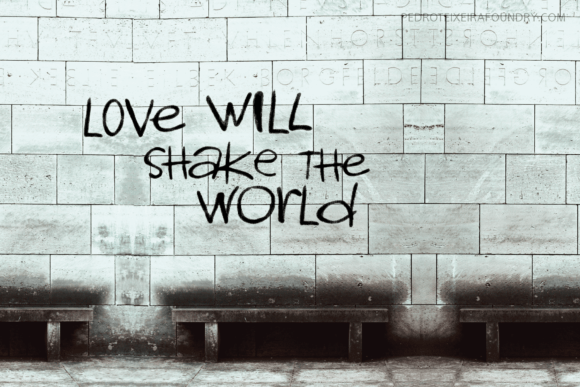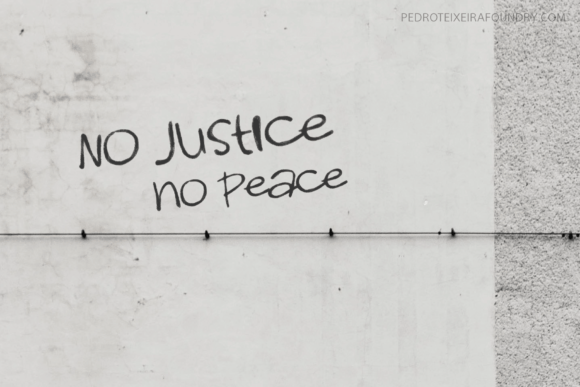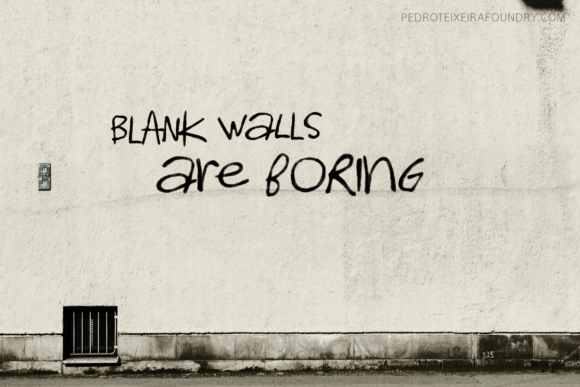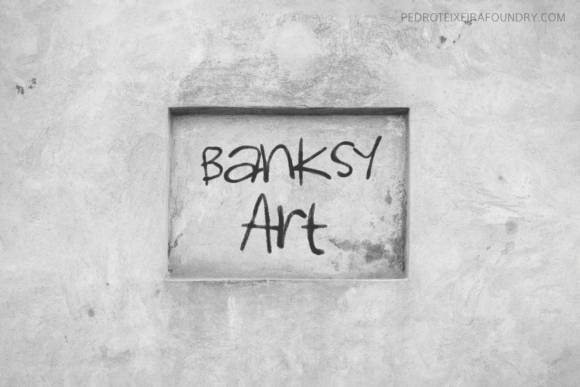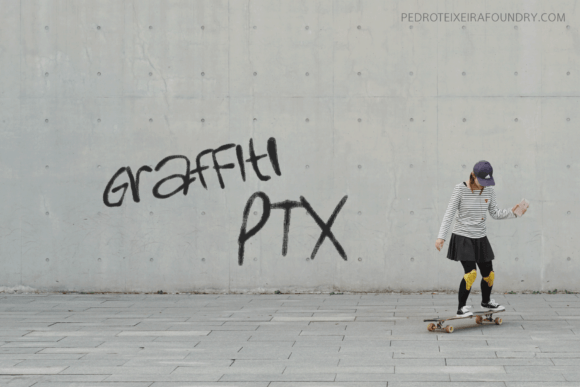
Graffiti Ptx Font: The Ultimate Guide to Old-School Street Style Typography
Are you a designer or crafter looking for a font that captures the essence of old-school graffiti? Look no further than the Graffiti Ptx Font. Inspired by the vibrant and eclectic texts that adorn street walls around the world, this font is perfect for adding a touch of urban grit to your designs. In this article, we’ll dive into the world of Graffiti Ptx Font, exploring its features, uses, and tips for incorporating it into your creative projects.
The Inspiration Behind Graffiti Ptx Font
Graffiti Ptx Font was born out of a desire to capture the raw energy and rebellious spirit of street art. The font’s creators drew inspiration from the colorful tags, murals, and slogans that cover city walls, transforming them into a digital format that’s easy to use and customize. The result is a font that’s equal parts playful, edgy, and authentic.
Key Features of Graffiti Ptx Font
So, what makes Graffiti Ptx Font so special? Here are a few key features that set it apart:
- Urban feel: Graffiti Ptx Font has a distinctly urban feel, with bold lines, irregular shapes, and a dash of grit and grime.
- Highly customizable: With a range of weights, styles, and alternates, you can tailor Graffiti Ptx Font to suit your design needs.
- Multilingual support: This font supports multiple languages, making it perfect for global brands and designers.
Uses for Graffiti Ptx Font
So, what can you use Graffiti Ptx Font for? The possibilities are endless! Here are a few ideas to get you started:
- Posters and flyers: Add a touch of street style to your promotional materials with Graffiti Ptx Font.
- Headlines and titles: Use Graffiti Ptx Font to create bold, eye-catching headlines that demand attention.
- Branding and logos: Incorporate Graffiti Ptx Font into your brand identity for a unique and edgy look.
- Merchandise and apparel: Graffiti Ptx Font is perfect for designing t-shirts, hoodies, and other streetwear-inspired merchandise.
Tips for Using Graffiti Ptx Font
To get the most out of Graffiti Ptx Font, here are a few tips to keep in mind:
- Experiment with colors: Graffiti Ptx Font looks great in bold, bright colors, so don’t be afraid to get creative.
- Mix and match: Combine Graffiti Ptx Font with other fonts and textures to create a unique look.
- Keep it simple: Don’t overcomplicate your design – sometimes, less is more.
Graffiti Ptx Font is a game-changer for designers and crafters looking to add a touch of old-school street style to their work. With its bold, urban aesthetic and highly customizable features, this font is perfect for a wide range of creative projects. Whether you’re designing posters, headlines, or merchandise, Graffiti Ptx Font is sure to bring a fresh and edgy vibe to your designs.